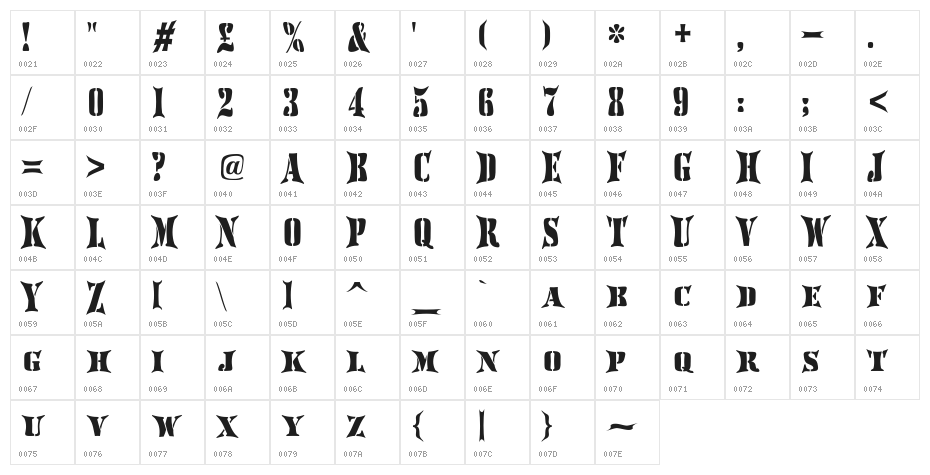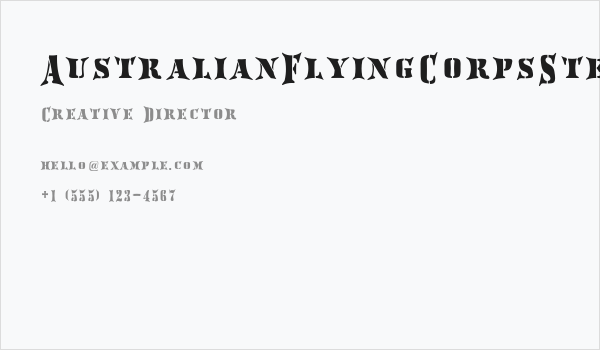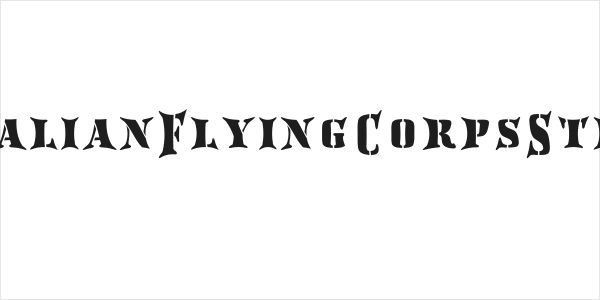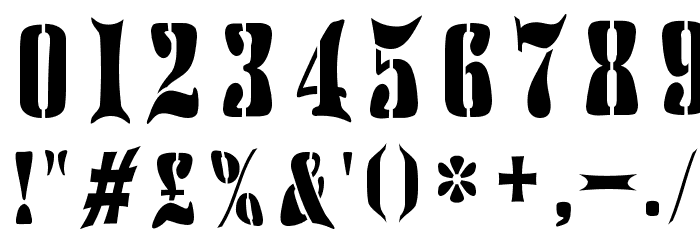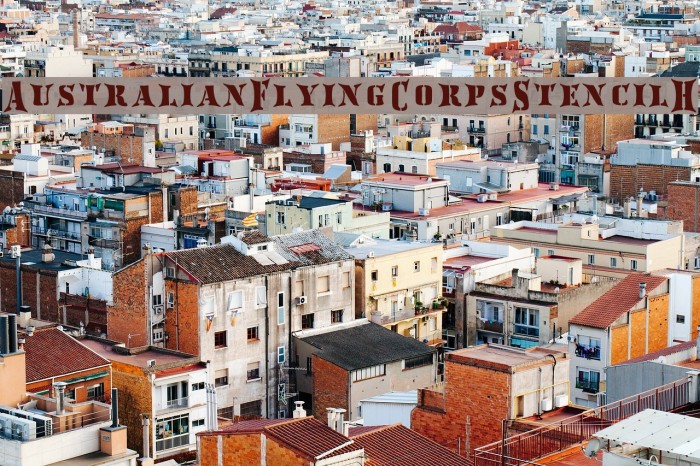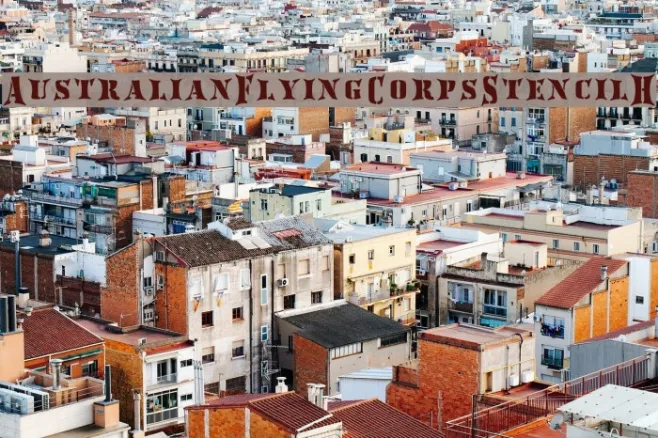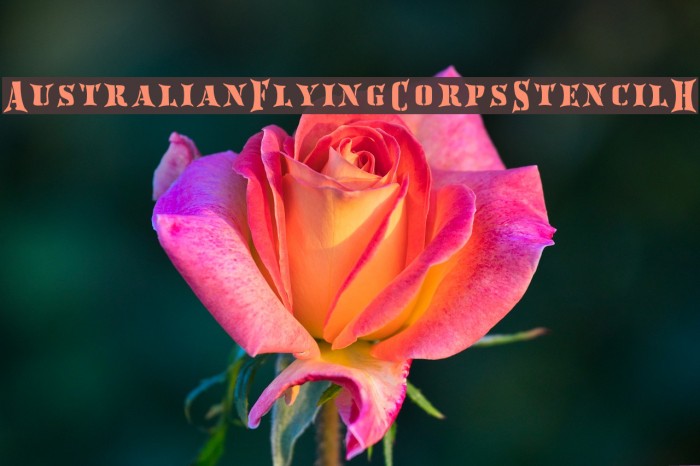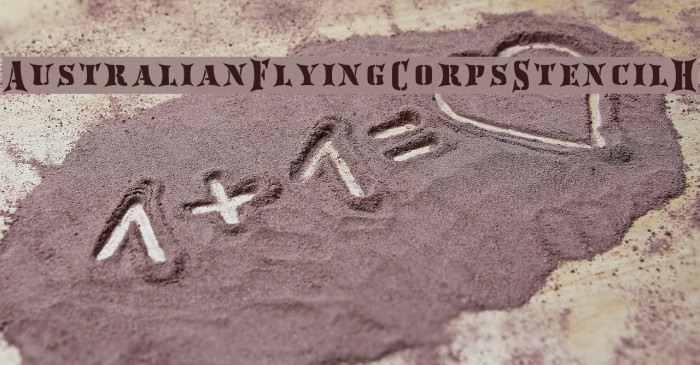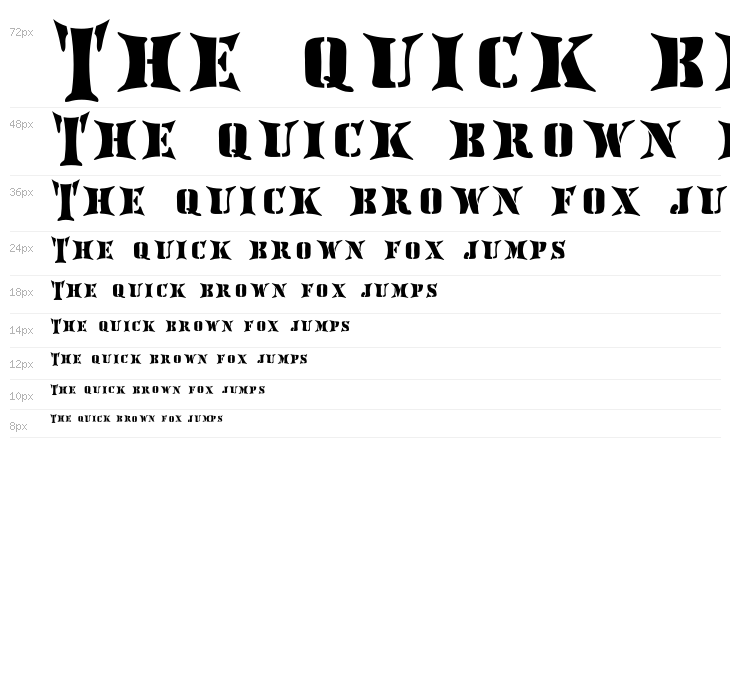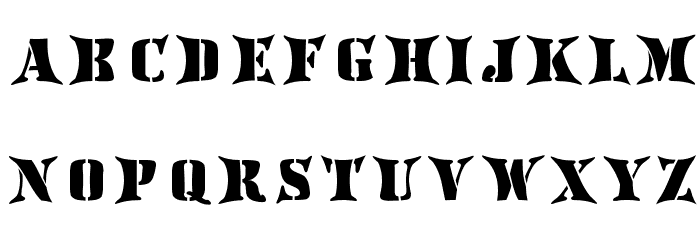
AustralianFlyingCorpsStencilH Font
AustralianFlyingCorpsStencilH Description
This font features a bold, stencil-like design with sharp, angular edges and a distinct military-inspired aesthetic. The uppercase letters are prominent and commanding, with a strong presence that makes them ideal for attention-grabbing headlines or signage. The numbers and special characters maintain the same boldness and style, ensuring consistency across all text elements. The font's stencil cutouts add a rugged, utilitarian feel, reminiscent of vintage military or industrial applications. Its unique style is both functional and decorative, making it suitable for projects that require a strong visual impact.
| Use Case | Headlines, Logos, Signage |
| Proposed Projects | Ideal for military-themed designs, industrial signage, posters, and branding that requires a strong, bold statement. |